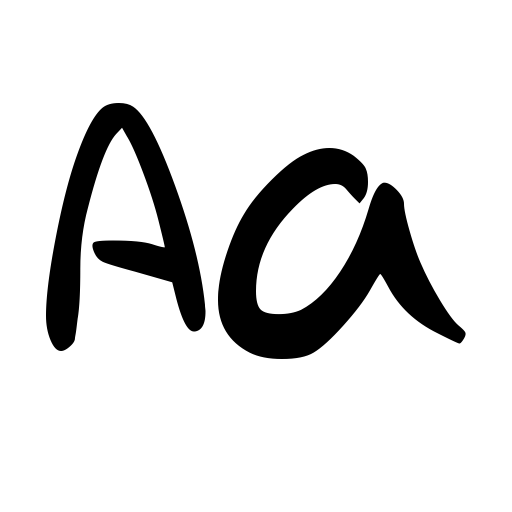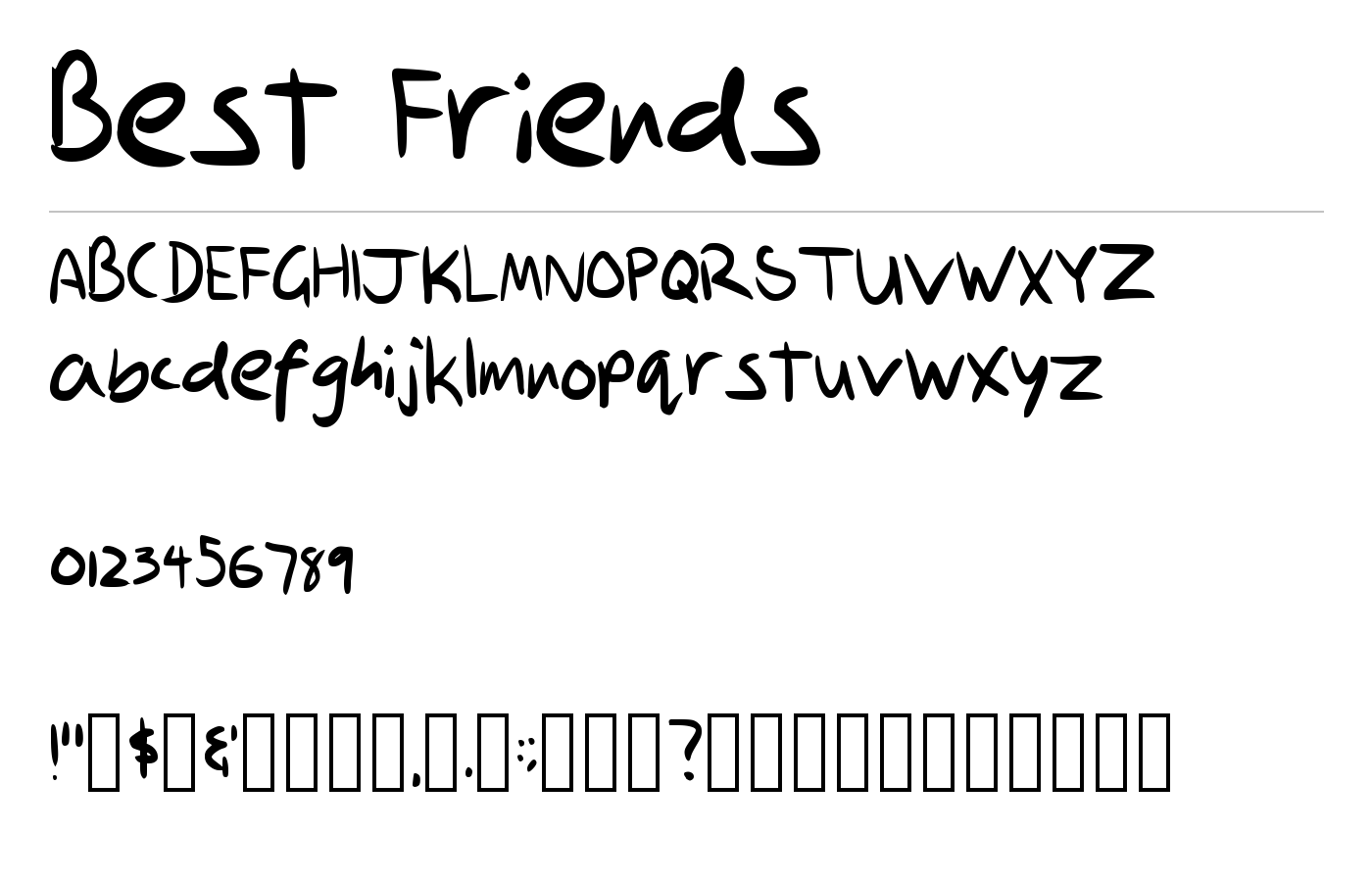
Best Friends Font is a playful and casual handwritten sans serif typeface with a light, friendly feel. Its irregular strokes and informal shapes create a warm, personal touch that works beautifully for kids’ designs, invitations, and branding that aims to feel approachable and fun. This font shines in creative and informal contexts where a natural, friendly voice is needed.
Best Friends Font
About Best Friends Font